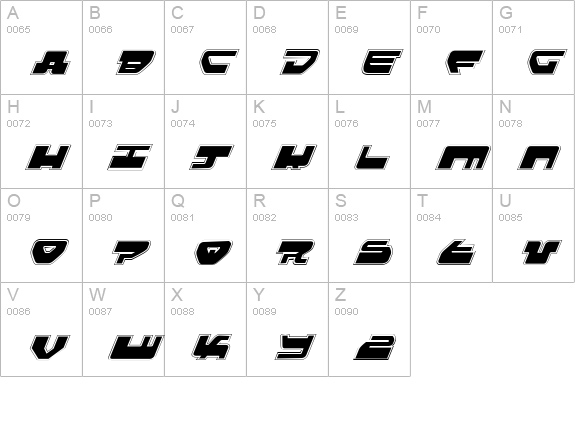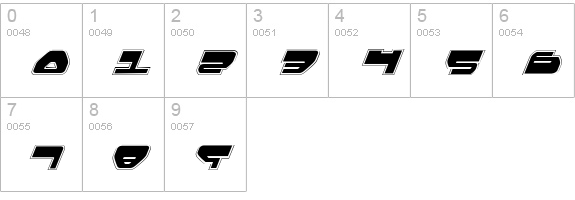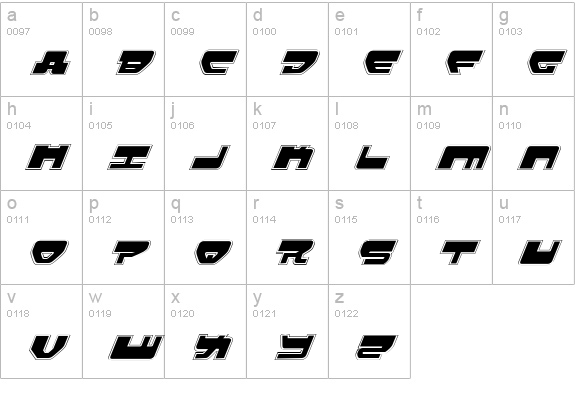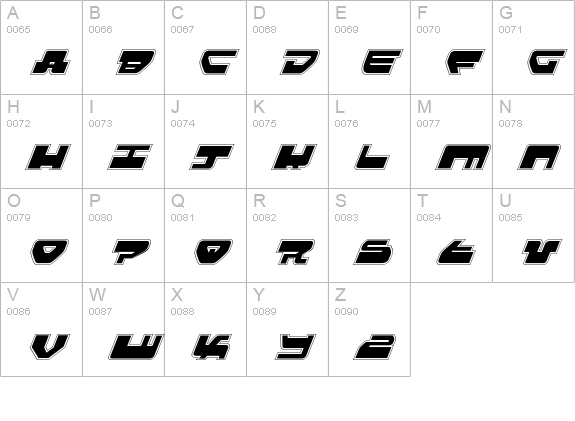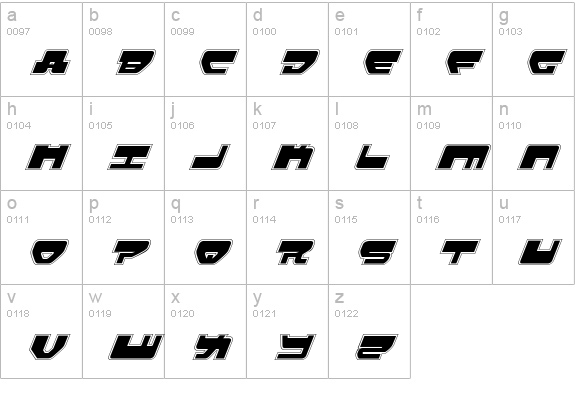
Loveladies Pro Italic is a distinctive, italic variant in the Loveladies typeface family \xE2\x80\x94 well suited to design and typography projects.
Loveladies Pro Italic is a gracefully designed font that exudes elegance and sophistication. Its sleek and modern Italic style adds a touch of flair to any project, making it perfect for branding, editorial design, and more. The fluidity of its curves and the finesse of its strokes create a sense of refinement that is sure to captivate your audience. What sets Loveladies Pro Italic apart is not only its stunning aesthetic appeal but also its accessibility. This premium font is available for free download at FontsMarket.com, allowing you to elevate your designs without breaking the bank. Whether you're a seasoned designer or just starting out, Loveladies Pro Italic offers a versatile and timeless option that will enhance your creative projects.